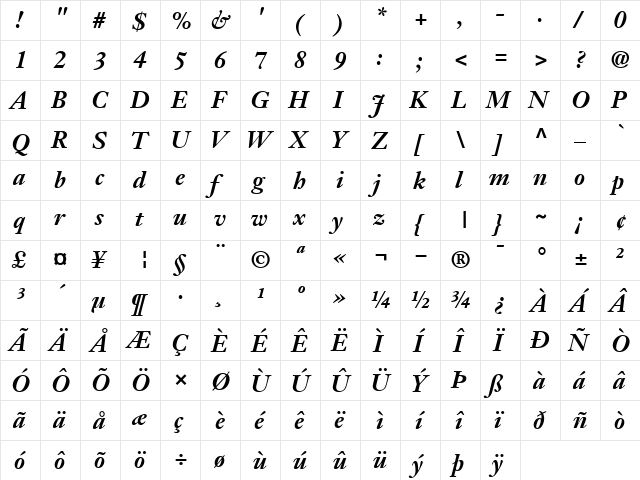
JansonText76 BoldItalic
JansonText76 takes a measured approach to typography — its balanced proportions and neutral character make it a reliable workhorse for both digital and print work. The slanted form adds forward momentum and visual energy. The heavy weight commands attention and anchors typographic hierarchies.
Pro Tip: Use JansonText76 for emphasis, pull quotes, and subheadings where its slanted energy can add rhythm to the layout.